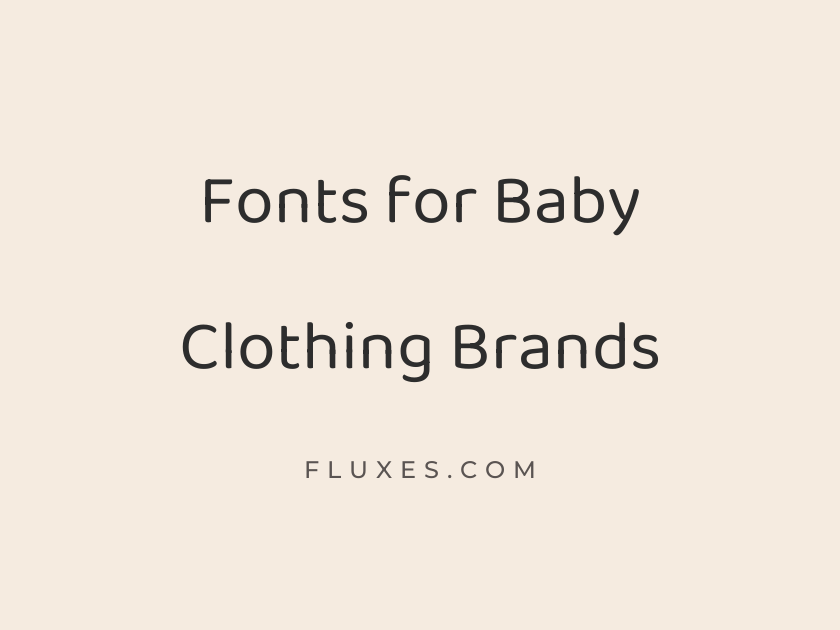
61 Best Fonts for Baby Clothing Brands
Choosing a typeface for a baby clothing brand means balancing softness with legibility, playfulness with trust. Parents are shopping for something that will touch delicate skin, so the lettering on a hangtag, onesie print, or nursery label needs to feel gentle and honest before it feels clever. That is why so many of the best free fonts for this space lean rounded, hand-drawn, or lightly whimsical rather than sharp or corporate.
The options below span cheerful rounded sans-serifs for logos and packaging, brush and handwriting scripts for birth announcements and swing tags, chunky bubble letters for playroom graphics, and a handful of refined serifs for boutique or organic baby lines that want to read as premium rather than novelty. Every one of them is free on Google Fonts and ready to preview live.
Baloo 2 is one of the most dependable rounded display faces on Google Fonts, and it shows up constantly in kids and baby branding for good reason. Its letterforms are plump and friction-free, with generous curves that never feel sharp or aggressive, which makes it read as warm and safe even at large sizes on a onesie print.
It holds up well from a hero logo down to a swing tag, and it comes in enough weights to build a whole visual system around a single family. Pair it with a plain sans body text for care instructions and it will not fight for attention.
Bouncy and a little bit toylike, Fredoka has become a go-to for children’s and baby brands that want an approachable, storybook feel. The rounded terminals and generous x-height keep it legible even when scaled down for a small woven label.
Quicksand trades the exaggerated bounce of a novelty font for something calmer: geometric circles softened at the joints, giving it a minimal, almost Scandinavian nursery feel. It suits brands leaning toward a modern, gender-neutral aesthetic rather than pastel cuteness.
Varela Round keeps its rounded edges subtle, which makes it more versatile for body copy than most display-leaning rounded fonts. It works quietly on packaging inserts or size charts where the goal is comfort without cartoonishness.
The name says it all. Comfortaa’s low-contrast, perfectly circular bowls give it an airy, almost weightless quality that pairs nicely with pale nursery palettes and minimalist product photography.
Nunito is a workhorse rounded sans that reads as friendly without tipping into juvenile, which is why it turns up everywhere from parenting blogs to baby subscription boxes. Use a bold weight for headlines and a lighter one for body text and the whole family stays cohesive.
M PLUS Rounded 1c
Originally developed for Japanese type, M PLUS Rounded 1c carries a distinctly clean, toy-catalogue charm, with evenly weighted strokes and a slightly wider stance than most Western rounded fonts. It is an interesting alternative for a baby brand aiming for a modern, international nursery look rather than a cottage-core one.
Grandstander
Grandstander has more personality than most rounded sans faces, with a slight wobble and irregular rhythm in its letterforms that gives it a hand-built, craft-fair energy. It suits smaller, independent baby clothing labels better than large, polished retail brands.
Mali
Mali sits somewhere between a rounded sans and a casual handwriting face, with soft, slightly uneven strokes that feel warm rather than sterile. It is worth trying on a birth announcement or a baby shower invitation where a touch of informality is welcome.
Sniglet is unapologetically pudgy, built from thick, marshmallow-soft shapes that instantly read as baby-friendly. It is best used sparingly, as a single logotype or headline, since its heaviness can feel overwhelming in long stretches of text.
Bubblegum Sans
This one leans hard into candy-shop cuteness, with rounded, slightly wobbly letters that feel hand-inflated. It is a natural fit for pastel packaging or a baby brand with a sweets-and-treats visual theme.
Chewy is thick, glossy-looking, and genuinely fun, the kind of lettering you would expect on a plush toy’s tag rather than a sober product label. It works best in short bursts, a brand name or a single playful headline, rather than as a workhorse text face.
Test any font on your actual packaging materials before committing. Fabric print, embroidery, and foil stamping can all change how delicate strokes or fine serifs actually render.